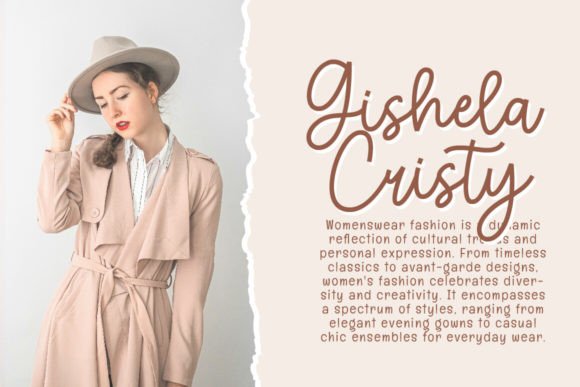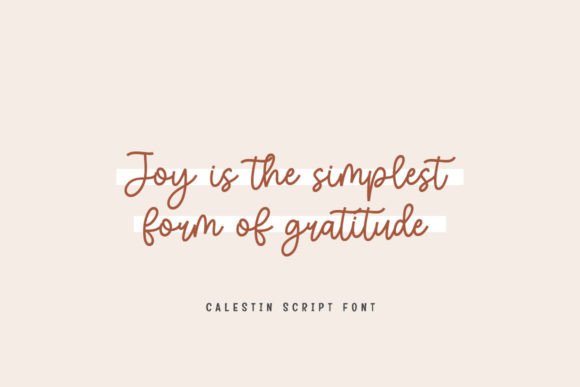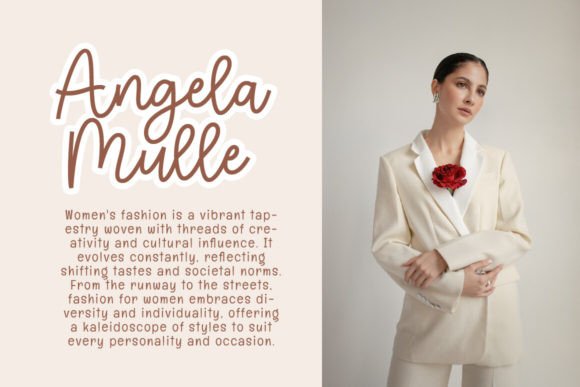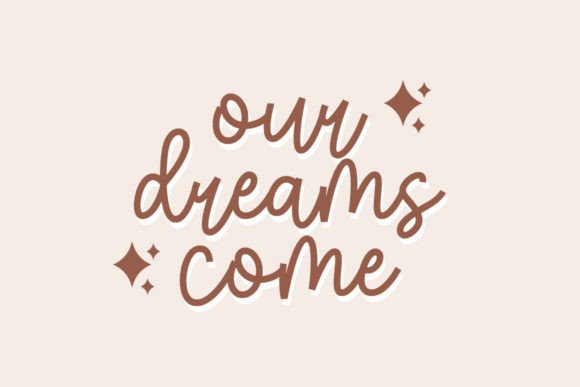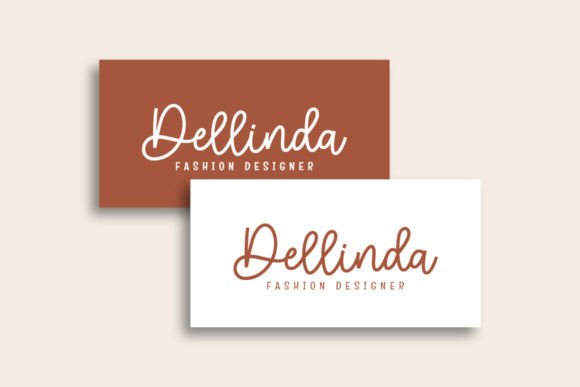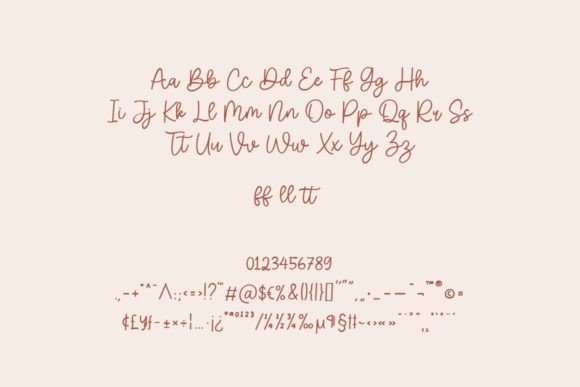
The Calestine Font: A Timeless Beauty for Your Design Projects
I still remember the design project that led me to discover the Calestine font. I was working on a wedding invitation for a close friend, and I wanted to create something truly special. As I scrolled through my font library, I stumbled upon Calestine, and it instantly captured my attention. Its elegant, handwritten script strokes seemed to dance across the page, exuding a sense of sophistication and charm. I knew right then and there that Calestine was the perfect fit for my project.
- ✅ Elegant and flowing strokes that add a touch of sophistication to any design
- ✅ Gentle curves and rounded edges for a soft, approachable feel
- ✅ Highly legible, making it perfect for body text and creative displays
- ✅ Versatile and suitable for a wide range of design projects, from invitations to branding
- ⚠️ Some users may find the font a bit too ornate for very casual or playful designs
- ⚠️ Limited availability of bold or condensed variations, which may limit its use in certain contexts
The Story Behind Calestine: Designer Inspiration
Calestine was designed by a talented typographer who wanted to create a font that would evoke a sense of elegance and charm. Inspired by classic calligraphy and handwritten scripts, Calestine is a beautiful and timeless font that is sure to capture attention. While the designer’s story is shrouded in mystery, their passion for typography and design is evident in every stroke of Calestine.
| Font Name | Calestine Font |
| Author | Typebae |
| What is Calestine font best used for? | Calestine font is ideal for invitations, branding, creative displays, and any design project that requires a touch of elegance and sophistication. |
| Does Calestine support OpenType features? | Yes, Calestine supports OpenType features, including glyphs and stylistic alternates. This allows you to customize the font to suit your design needs. |